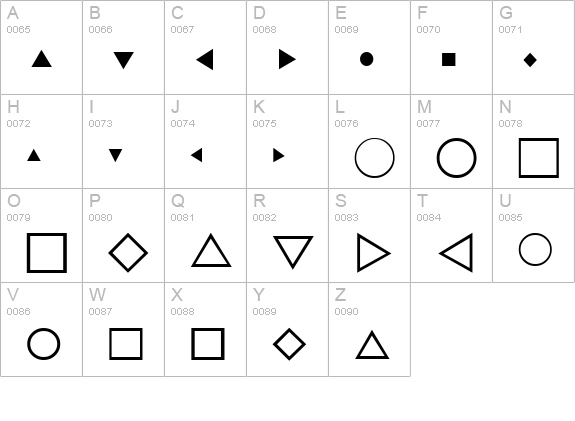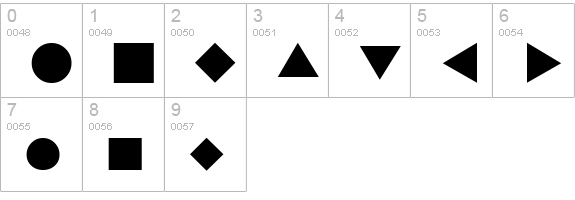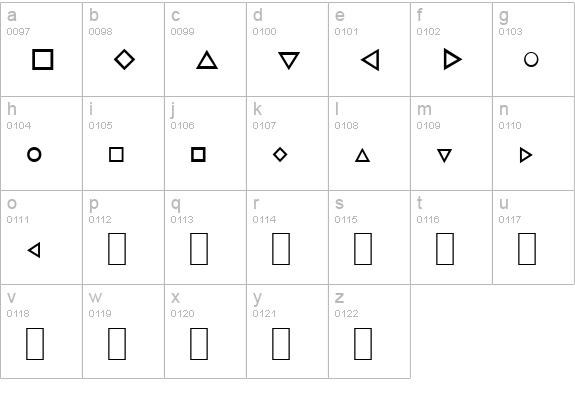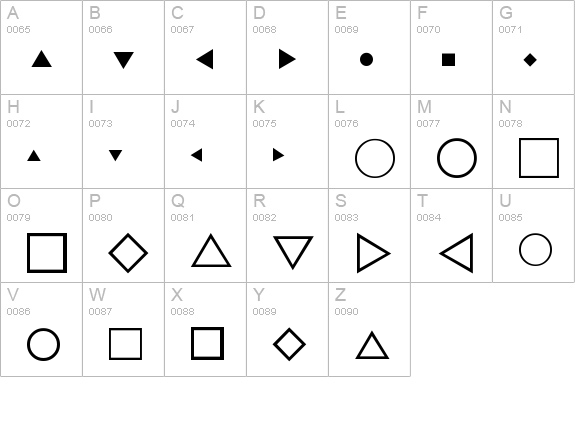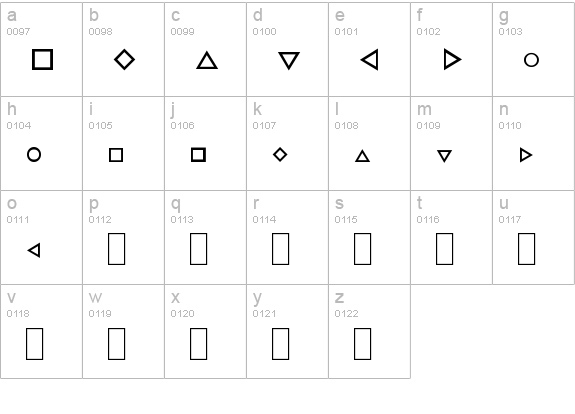
CJNPiFont!1 Font Details
Introducing CJNPiFont!1, a modern and stylish font that is sure to make your designs stand out. This versatile font features sleek lines and a contemporary look that is perfect for a wide range of projects. Whether you're creating posters, logos, or social media graphics, CJNPiFont!1 will add a touch of sophistication to your work. Best of all, CJNPiFont!1 is completely free to download at FontsMarket.com. This means that you can enhance your designs without having to worry about breaking the bank. With CJNPiFont!1, you can unleash your creativity and bring your vision to life with ease. Don't miss out on this amazing opportunity to elevate your designs with CJNPiFont!1. Download it today and see the difference it can make in your projects!